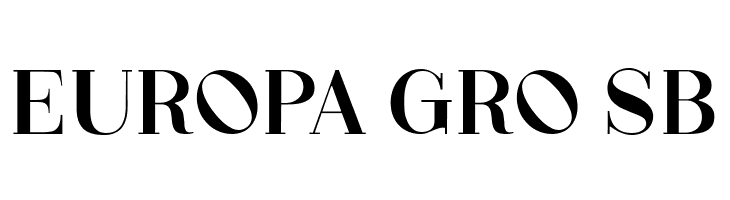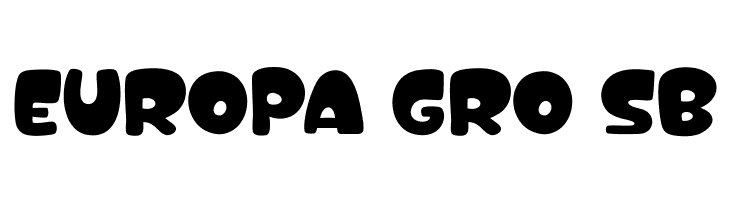
A bold, outlined font with a modern, geometric style.
A bold, rounded geometric font with a modern and playful style.
A romantic script font with letters encased in decorative heart shapes.
A flowing, cursive script font with elegant swashes and intricate loops.
A lively, cursive handwritten font with fluid strokes and medium contrast.
A playful, decorative script font with heart motifs and bold, flowing characters.
A classic serif font with high contrast and elegant strokes.
A romantic collection of love-themed icons and symbols with elegant and detailed designs.
A bold, playful font with rounded, bubbly characters ideal for fun and nostalgic designs.